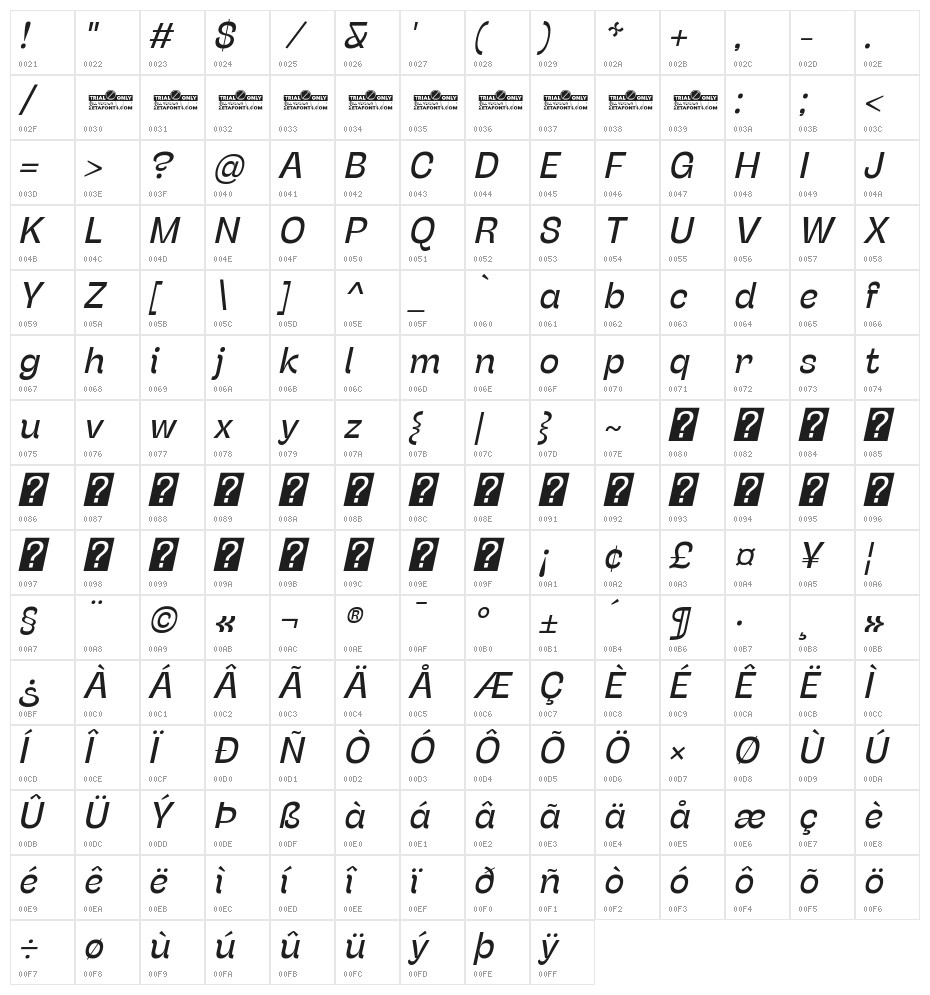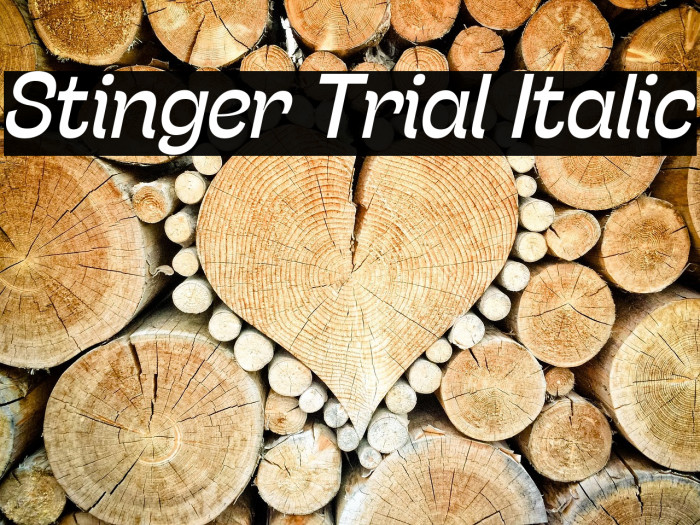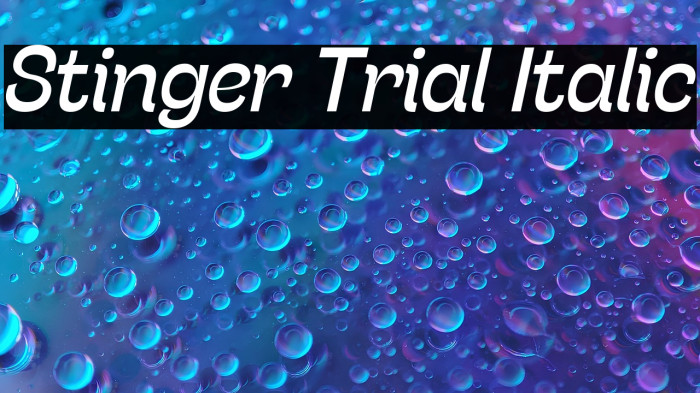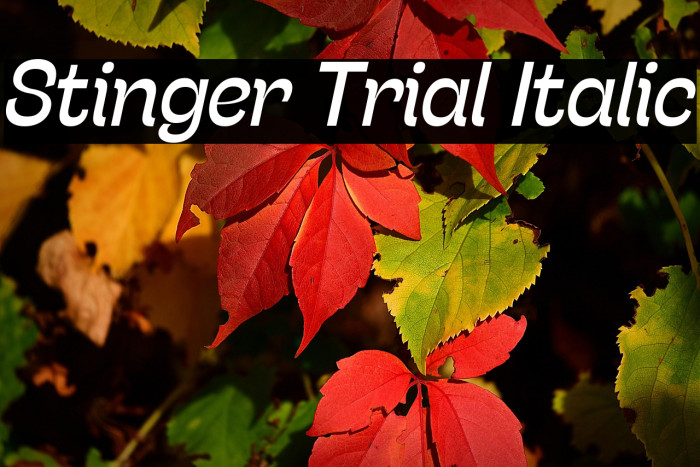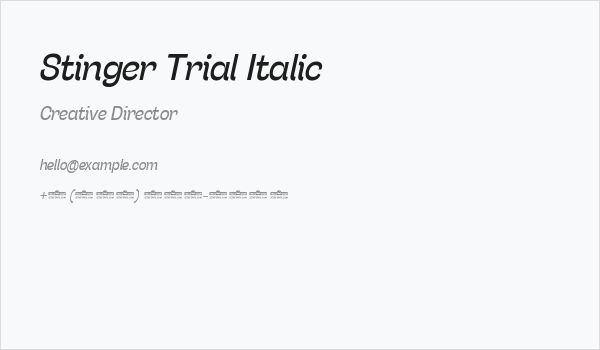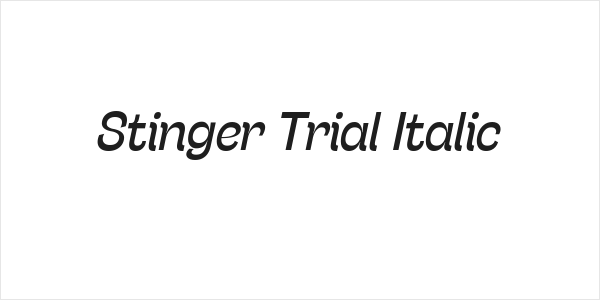
Stinger Trial Italic Font
Stinger Trial Italic Description
This font exhibits a sleek and modern design with a distinct italic slant, giving it a dynamic and forward-moving appearance. The characters are well-proportioned, with a uniform stroke width that maintains readability while adding a touch of elegance. The uppercase and lowercase letters are consistent in style, with smooth curves and sharp angles that enhance its contemporary feel. The numerals and special characters are designed to complement the alphabet, ensuring a cohesive look across all text. This font's clean lines and subtle sophistication make it versatile for various design applications.
| Proposed Projects | Ideal for branding, advertising, and editorial design projects where a modern and stylish look is desired. |